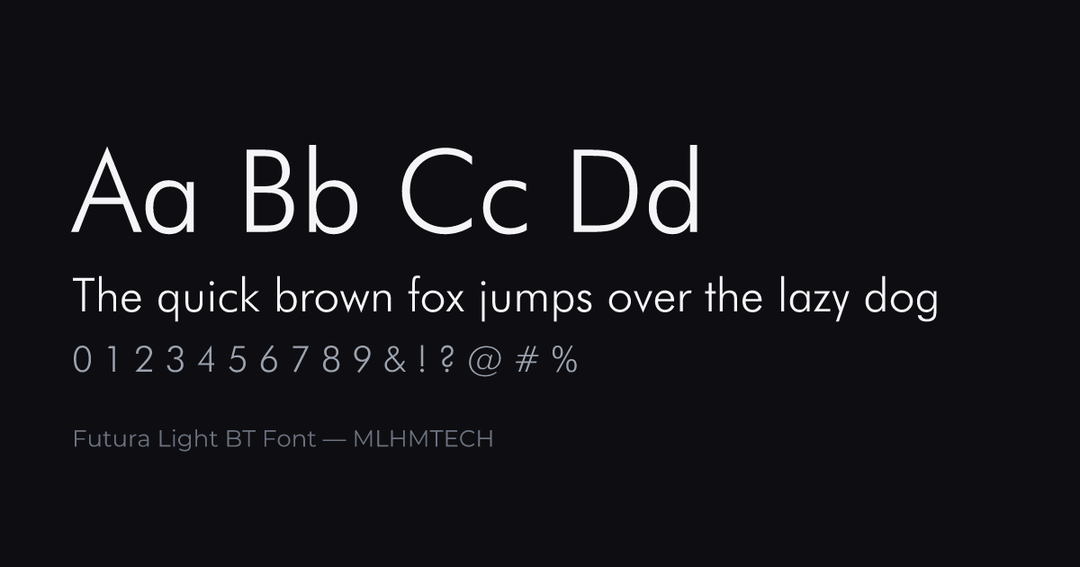
Futura Light BT Font
Futura Light BT is a geometric sans-serif font with a clean, modern look. Ideal for logos, headings, and minimalist designs.
Futura Light BT is a classic geometric sans-serif typeface designed by Paul Renner. Its clean, balanced letterforms make it a versatile choice for a wide range of design projects, from branding to editorial layouts. The light weight offers an elegant, airy feel that works well in large sizes for headings or in body text when a subtle, refined look is desired.